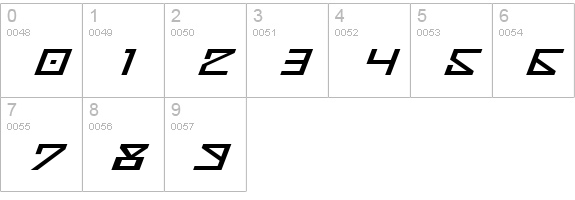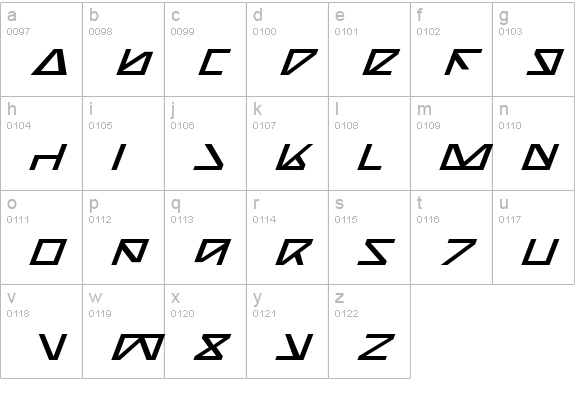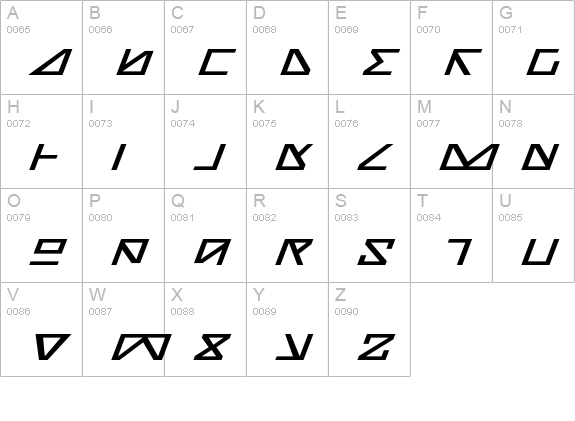
Nick Turbo Expanded Italic is a distinctive, extended-width, italic variant in the Nick typeface family \xE2\x80\x94 well suited to design and typography projects.
Introducing Nick Turbo Expanded Italic font, a dynamic and versatile typeface that exudes modernity and sophistication. With its sleek and bold design, this font is perfect for adding a touch of elegance to a wide range of creative projects. The elongated letterforms and italicized style create a sense of movement and energy, making it ideal for headlines, logos, and branding materials. What sets Nick Turbo Expanded Italic font apart is its seamless blend of professionalism and creativity, making it a standout choice for designers looking to make a statement. Whether you're working on a sleek editorial layout, a captivating website design, or eye-catching advertising materials, this font is sure to elevate your work to the next level. The best part? Nick Turbo Expanded Italic font is available for free download at FontsMarket.com. Now you can access this premium font without breaking the bank, making it easier than ever to add a touch of sophistication to your projects. Don't miss out on this opportunity to enhance your designs with the sleek and stylish Nick Turbo Expanded Italic font.